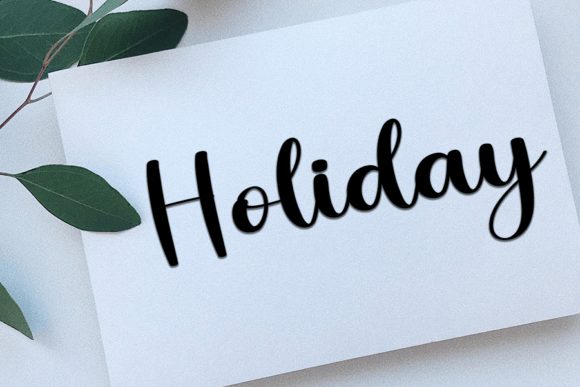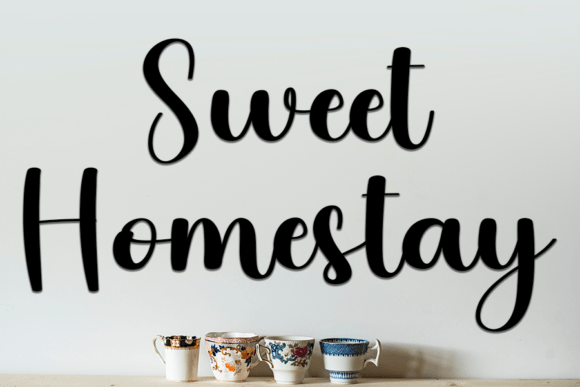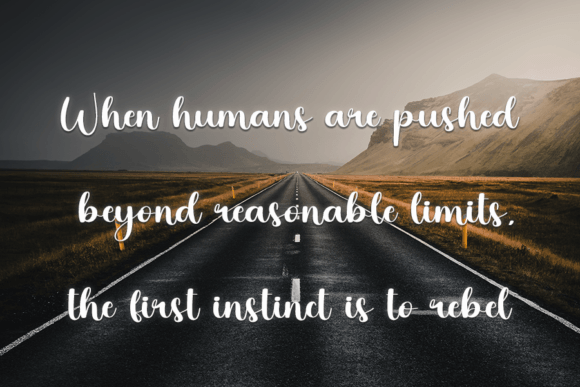
The Joy of Jelly Font
Have you ever stared at a blank page, waiting for inspiration to strike? For many designers, this is a familiar moment. It’s the spark that sets off a creative journey, filled with possibilities and endless imagination. Whether you’re crafting a personalized gift, designing a digital project, or creating a presentation that wows, the right font can make all the difference.
Enter Jelly Font, a beautiful script font that’s sure to captivate your audience. With its unique, handwritten feel, Jelly Font is perfect for adding a personal touch to any project. Whether you’re a seasoned designer or just starting out, this versatile font is a valuable addition to your toolkit.
Jelly Font Key Features
- Unique Characteristics: The font features a unique, jelly-like texture that gives it a playful and modern appearance, making it perfect for creative and artistic projects.
Jelly Font Review
Overall, I think the Jelly Font has some great qualities that make it a decent choice for certain projects. ✨ It’s playful and fun, perfect for kids’ apps or websites with a whimsical feel. The irregular shapes and bubbly texture add a nice touch of personality to any design.
- It’s very versatile – can be used in a variety of contexts, from headers to body text.
- The font is quite readable, even at smaller sizes.
- It’s available in a range of weights and styles, making it easy to customize.
However, there are some limitations to consider. ⚠️ The font can be a bit too playful for more serious or formal projects. It may not be the best choice for professional or corporate designs, where a more traditional font is usually preferred.
Additionally, some of the characters may be a bit too similar to each other, which can make reading and editing text more difficult.
Overall, I’d say the Jelly Font is a solid choice for projects that need a fun and playful touch. While it may not be the best fit for every project, it’s definitely worth considering for those that need a bit of whimsy.
Getting the Most Out of Jelly Font
Tips for getting the most out of Jelly Font include:
– Experiment with different font sizes and colors to create visually appealing effects.
– Use Jelly Font in combination with other fonts to create a unique and creative look.
– Apply Jelly Font to images or graphics to add a playful touch.
Common use cases for Jelly Font include:
– Creating playful and whimsical designs.
– Adding a touch of fun to educational materials or presentations.
– Designing marketing materials or social
Alternatives to Jelly Font
Pacifico is a beautiful, elegant script font that is perfect for adding a touch of sophistication to your designs. It’s ideal for use in invitations, branding, and packaging. Unlike Jelly Font, Pacifico has a more refined and polished feel, making it suitable for high-end projects.
Great Vibes is a modern, handwritten font that’s great for adding a personal touch to your designs. It’s perfect for use in social media graphics, blog posts, and other casual projects. While Jelly Font is more playful and whimsical, Great Vibes has a more relaxed and laid-back feel.